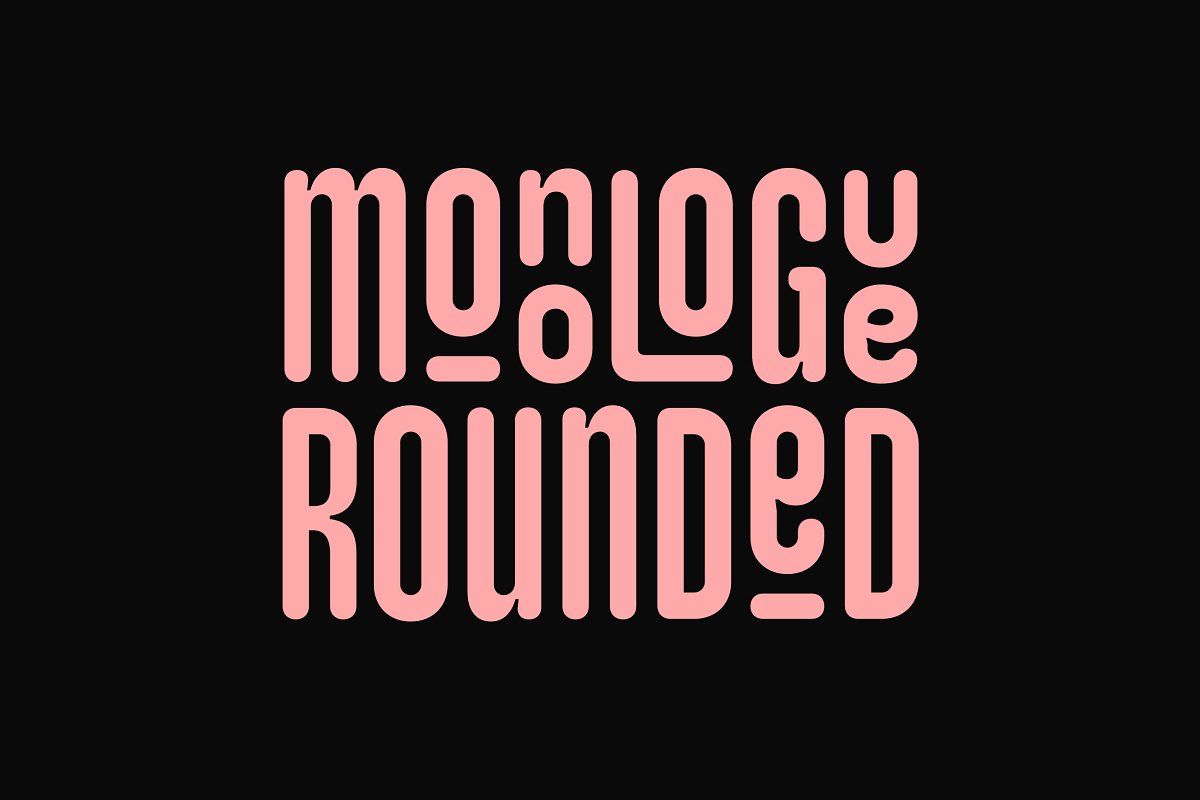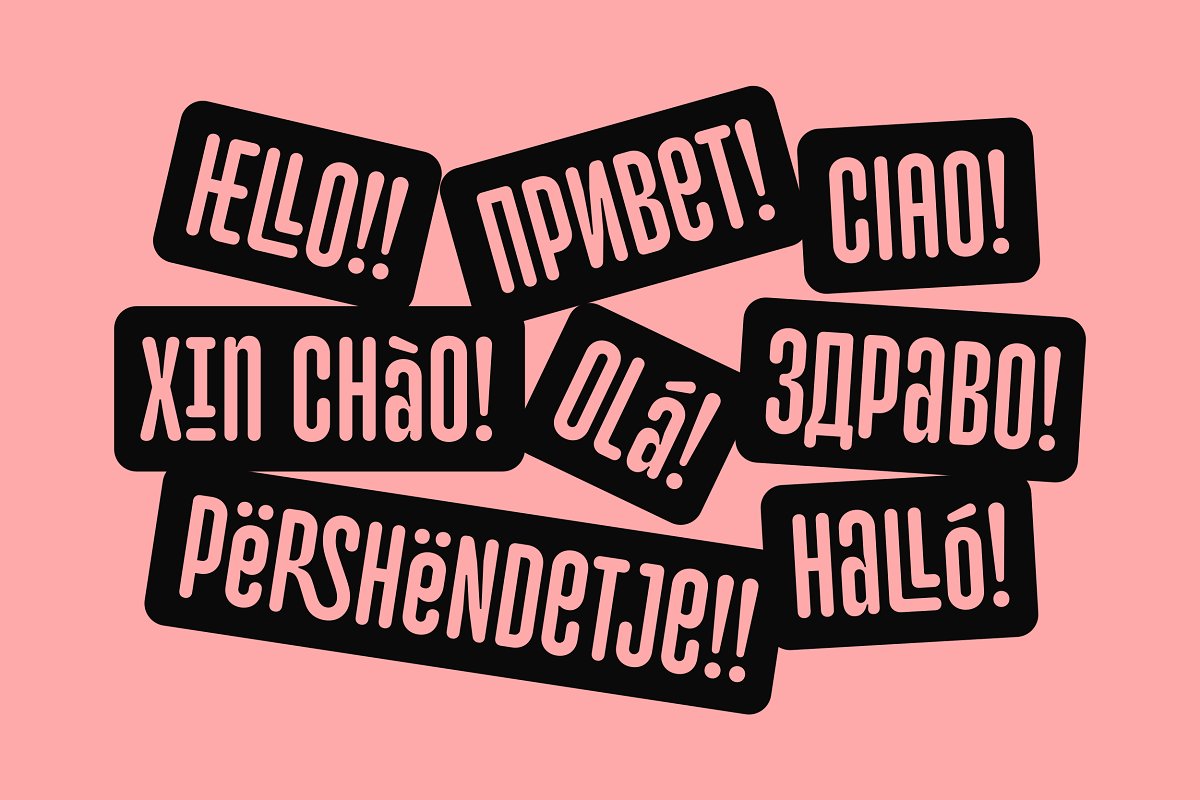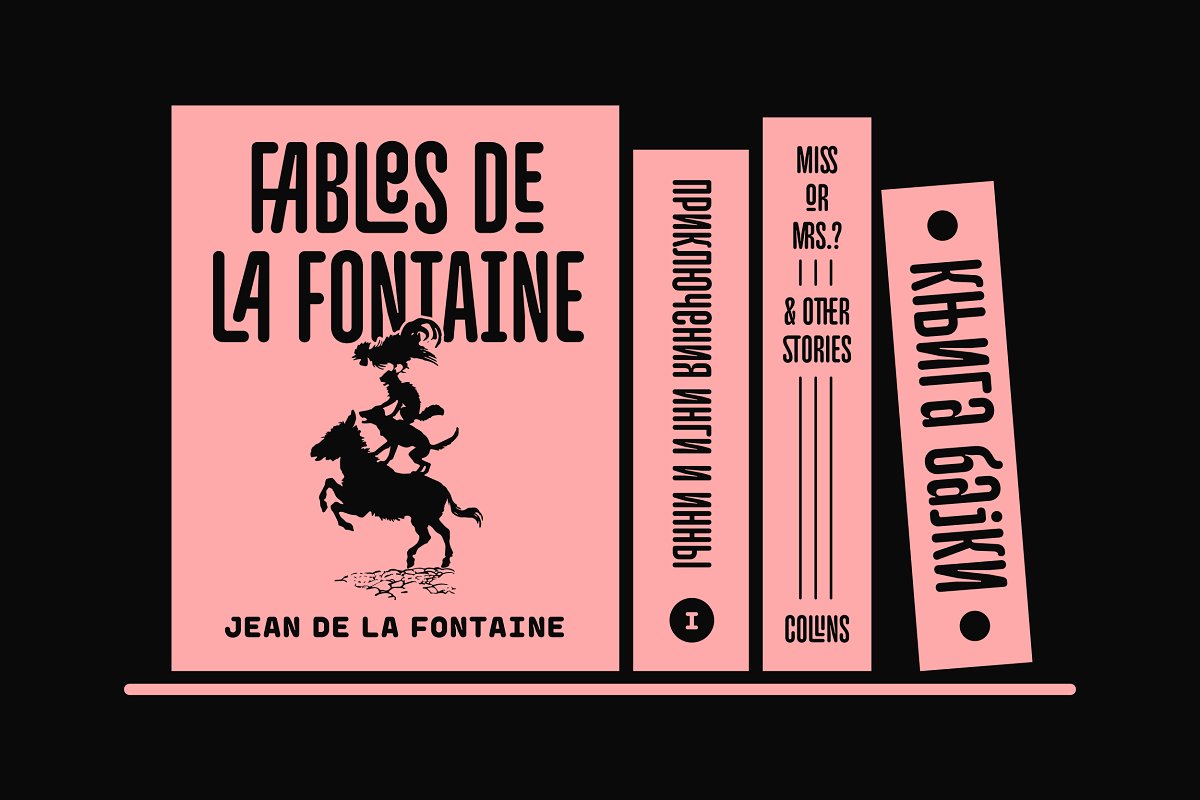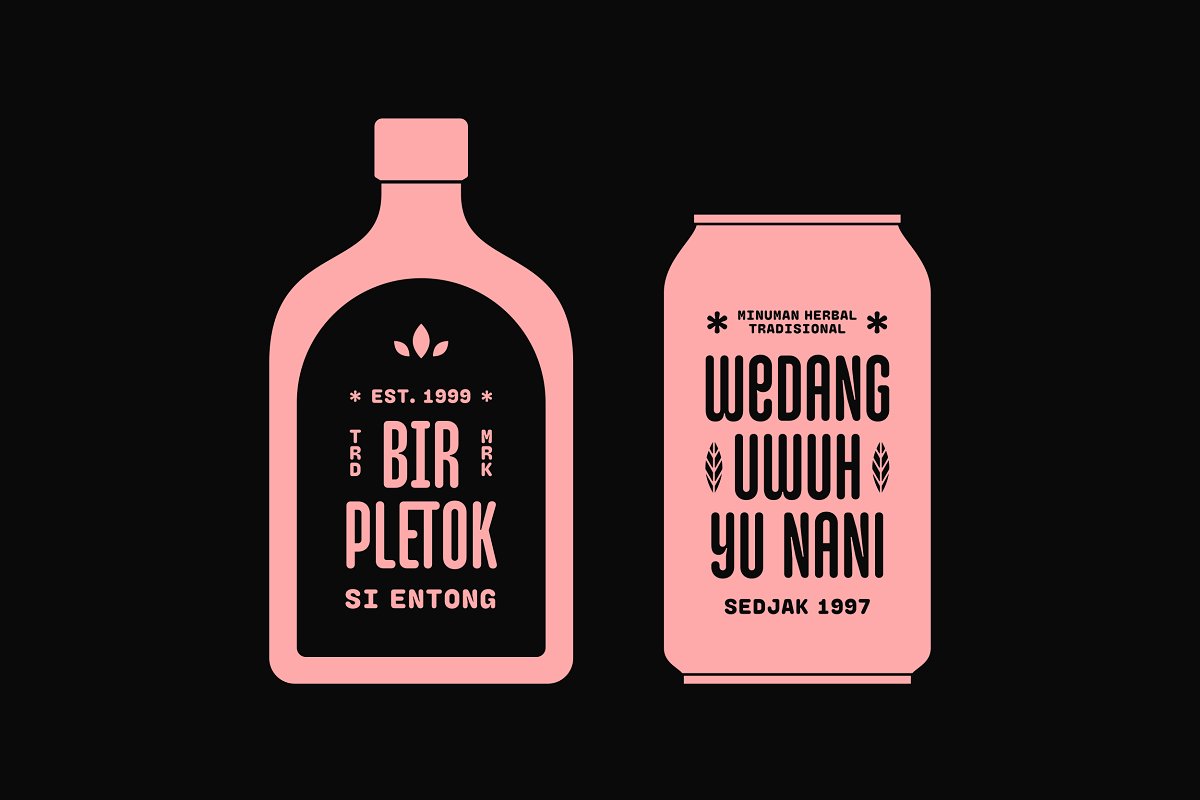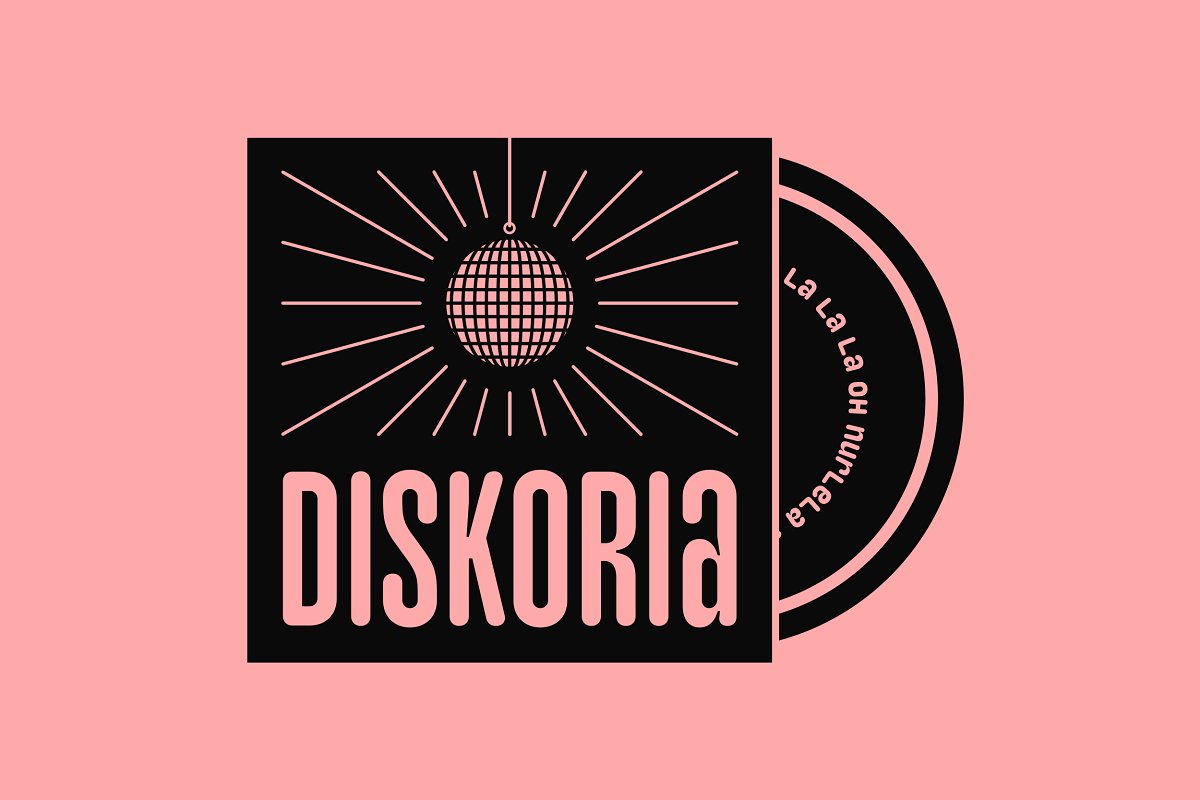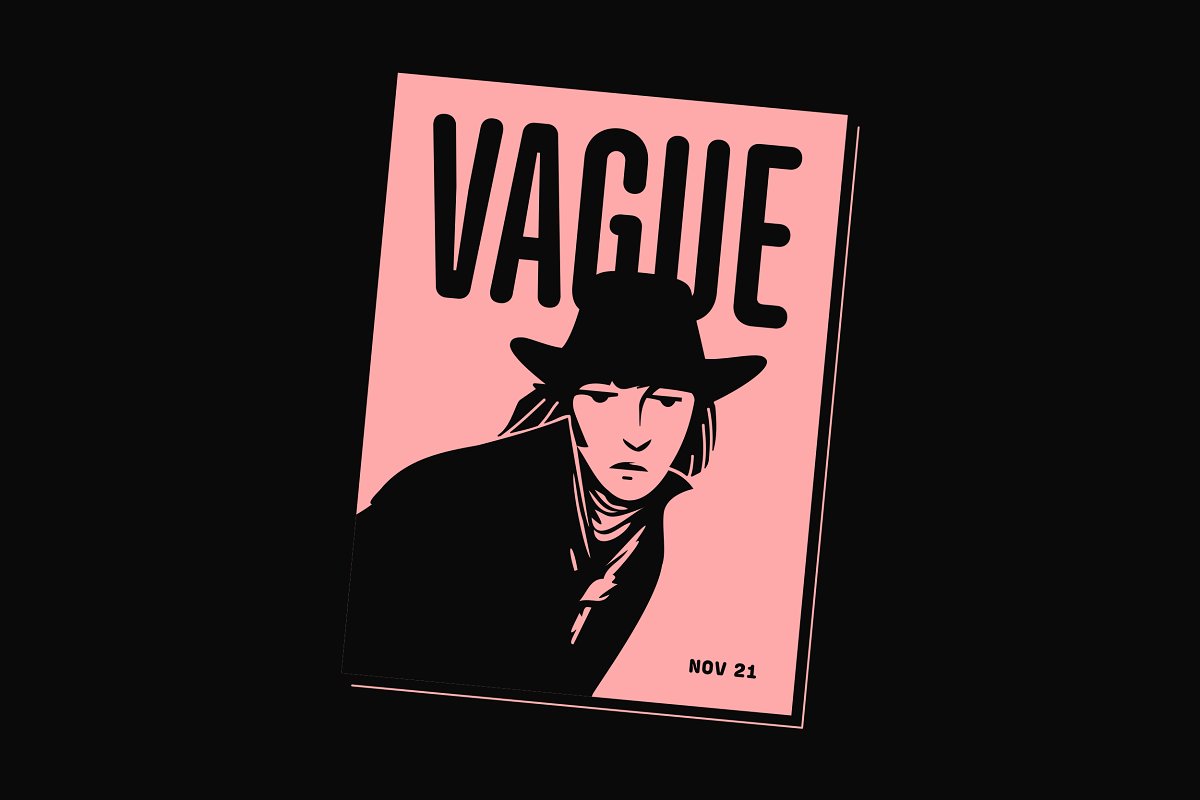
INTRODUCING MONOLOGUE ROUNDED! A softer, more humane, and funnier version of MONOLGUE, MONOLOGUE itself is a simple, condensed sans serif font with bold and complex personality, It was purposely crafted to be used in large point sizes, although it doesn’t lose it’s magic in small point sizes, With this rounded version, you can be even more expressive in your design projects
FEATURES:Basic latin characters, numerals, punctuations and symbols, Extensive language support, including slavic languages with cyrillic alphabet, Stylistic AlternatesStylistic Sets (ss01–ss06)100+ Discretionary LigaturesOrdinalsPreconstructed fractionsFractionsSuperscript and Superscript NumeralsKerned, spaced, and hintedIf you have any questions, please don’t hesitate to contact me via email at muhtadi